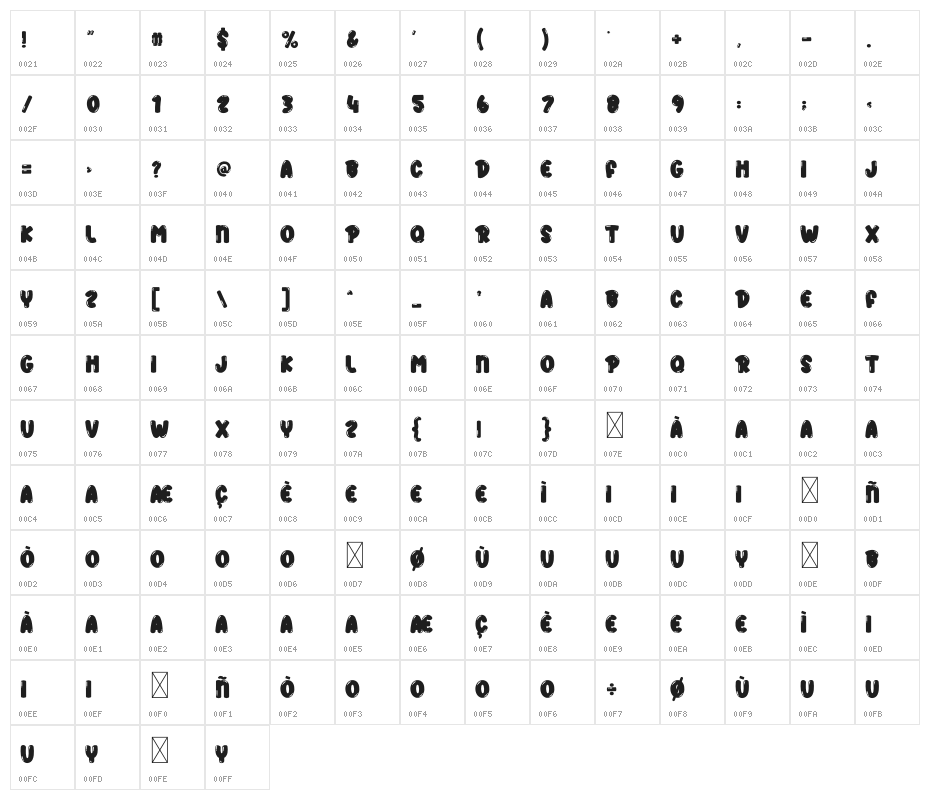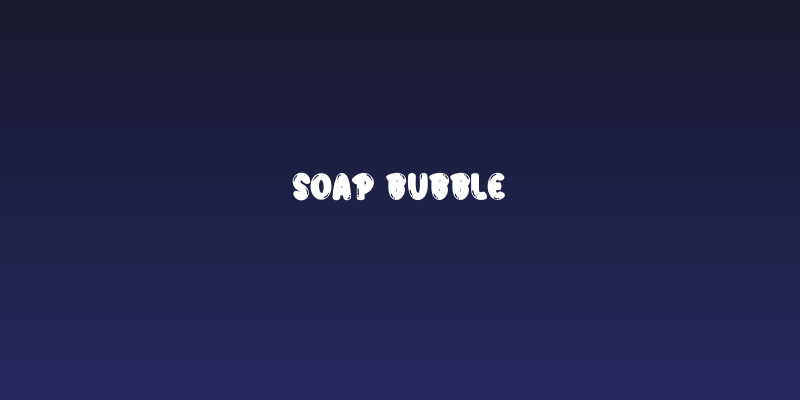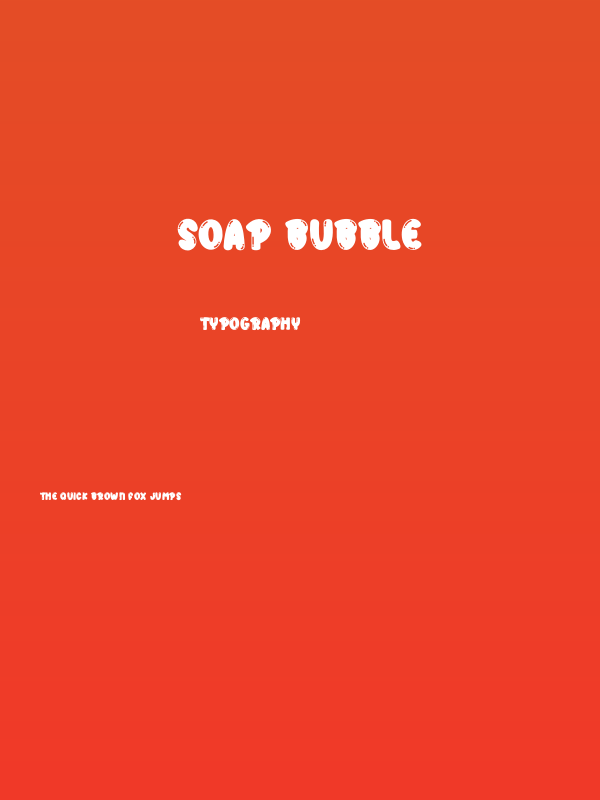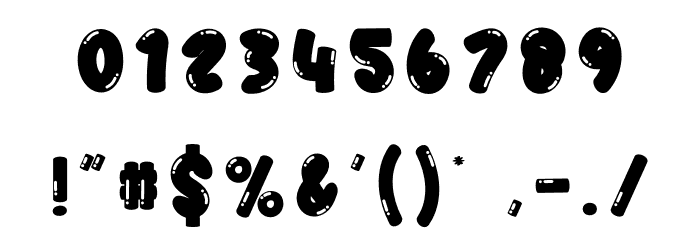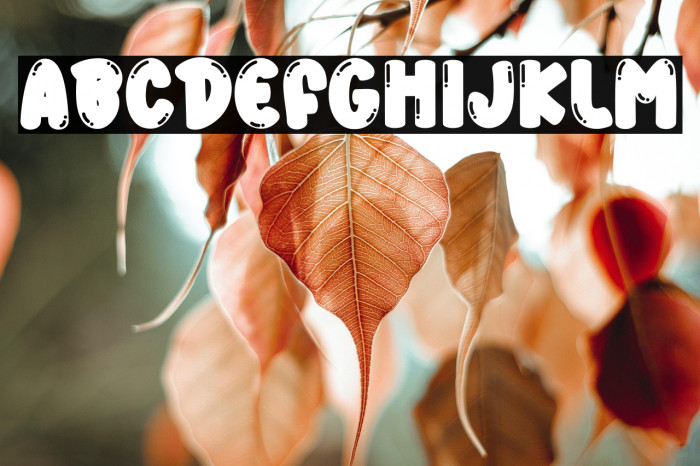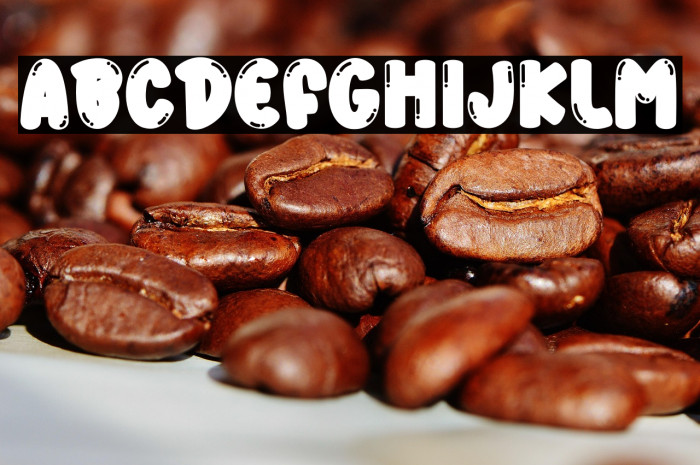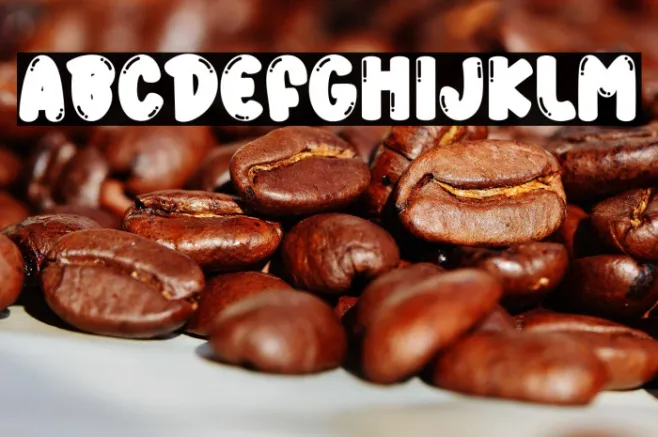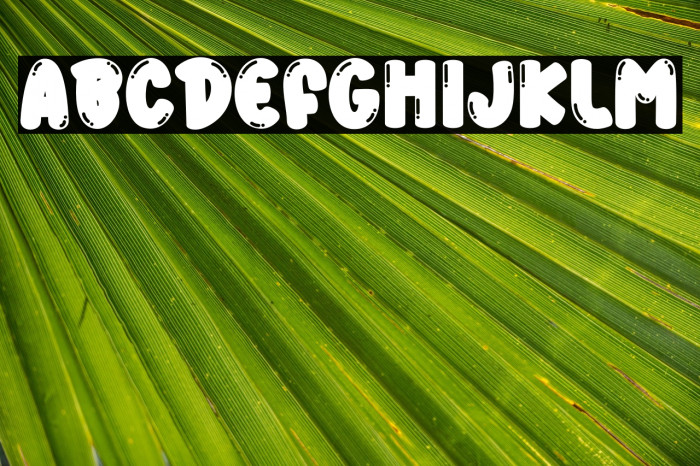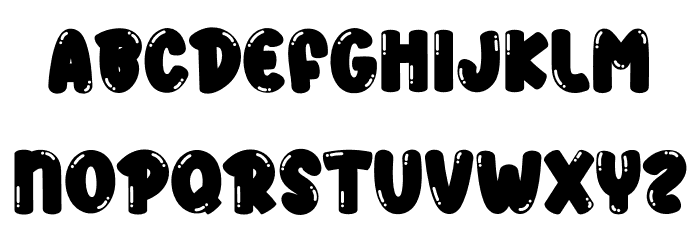
Soap Bubble Font
Soap Bubble Description
This playful and whimsical font features bold, rounded characters with a bubbly appearance. Each letter is designed with a thick, uniform stroke that gives it a soft and friendly look. The characters have a slight shine effect, reminiscent of soap bubbles, adding a touch of fun and lightheartedness. The font is highly legible, with consistent spacing and a balanced design that makes it suitable for various creative projects. Its unique style is perfect for capturing attention and conveying a sense of joy and playfulness.
| Proposed Projects | Ideal for children's books, playful branding, party invitations, and creative posters. |